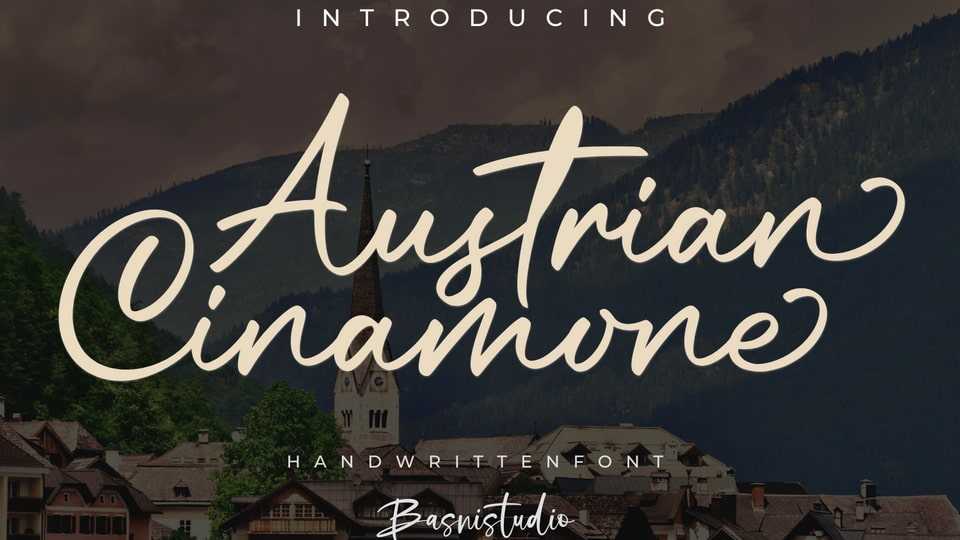
Download Austrian Cinamone font, a beautifully crafted handwritten typeface that adds a natural, versatile touch to everything from branding and social media to invitations and packaging.